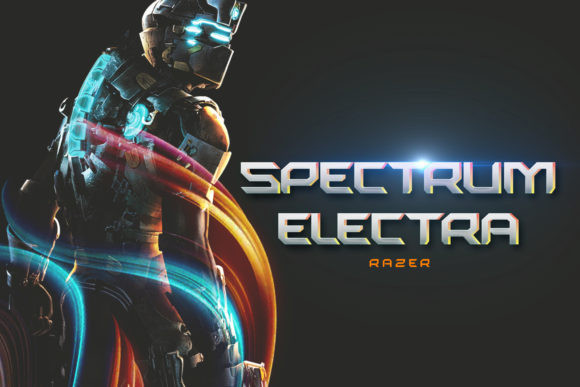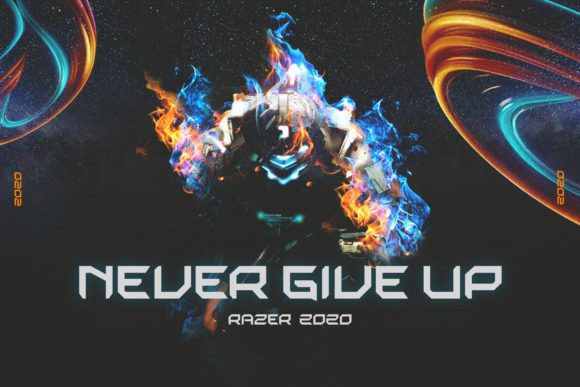
Razer Font
Razer is a bold and authentic display font. It celebrates abstract shapes in all their eclectic brilliance. Add this font to your creative ideas and notice how it will make them stand out!